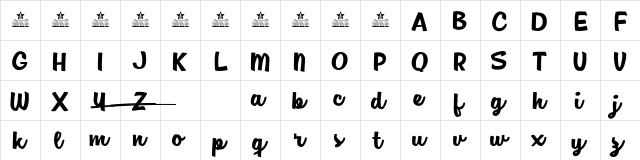
Jam Sessions Personal Use Regular
| Foundry | Billy Argel |
| Designer | Billy Argel |
Design Context for Jam Sessions Personal Use Typeface
Jam Sessions Personal Use is a composed and adaptable typeface that performs quietly and consistently across a wide range of design contexts.